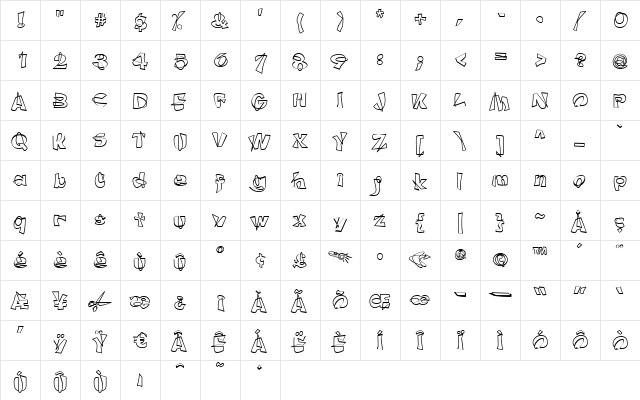
OWOErratic Regular
Design Context for OWOErratic Typeface
OWOErratic is a composed and adaptable typeface that performs quietly and consistently across a wide range of design contexts.